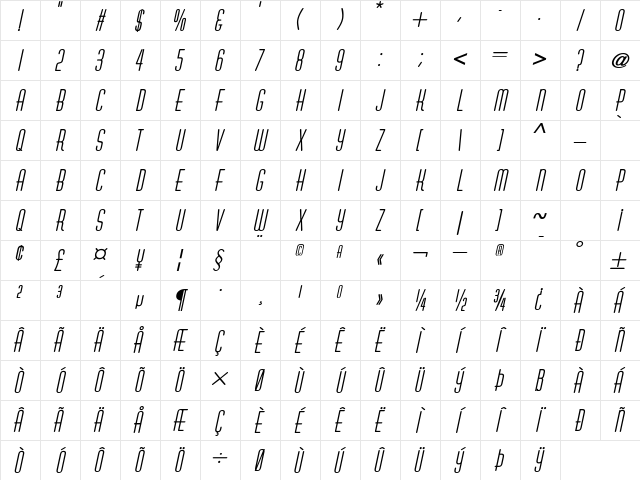
Astaire BlackItalic Free Font
Design Context for Astaire
Astaire is a composed and adaptable typeface that performs quietly and consistently across a wide range of design contexts. The slanted form adds forward momentum and visual energy.
Pro Tip: Use Astaire for emphasis, pull quotes, and subheadings where its slanted energy can add rhythm to the layout.